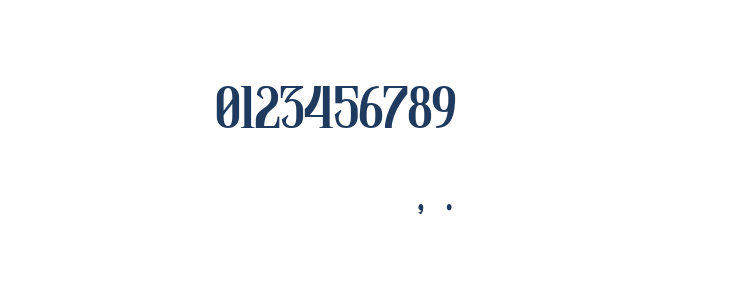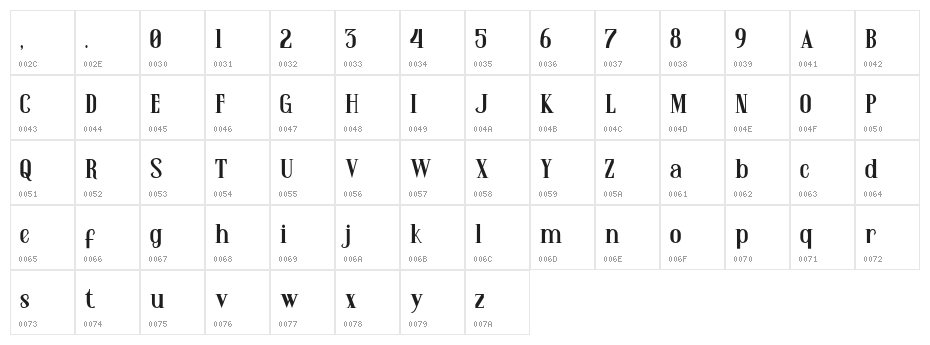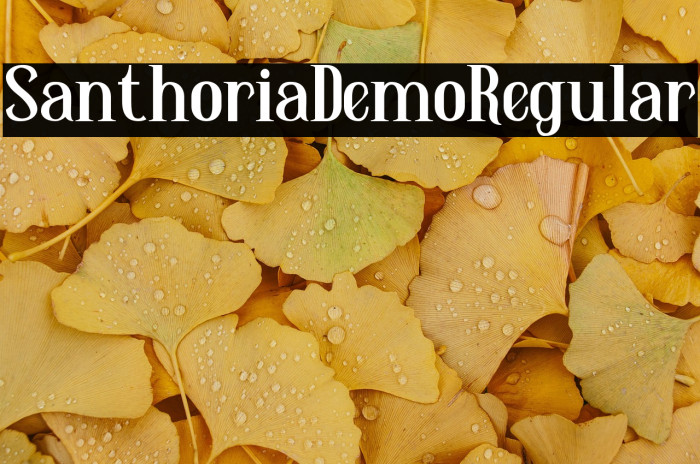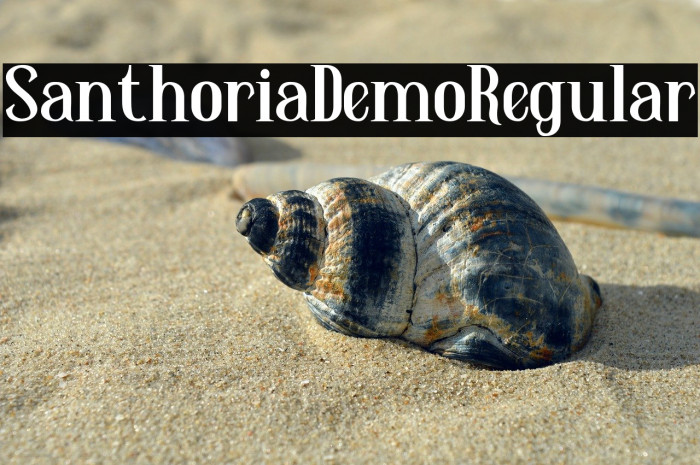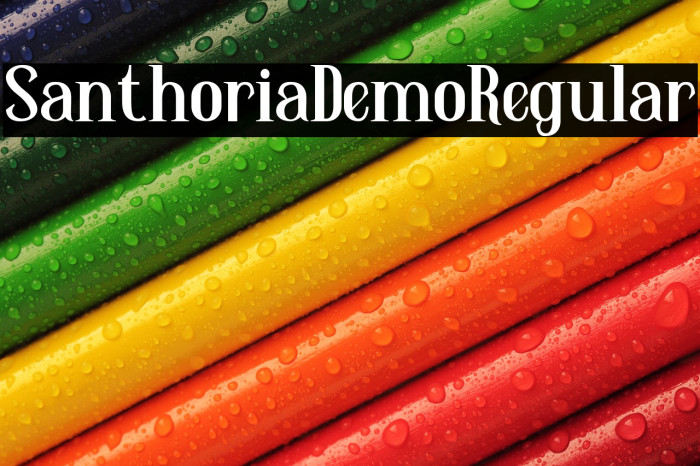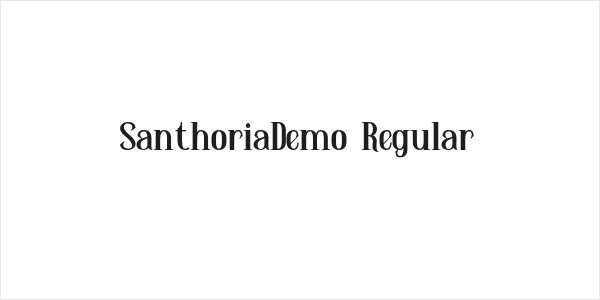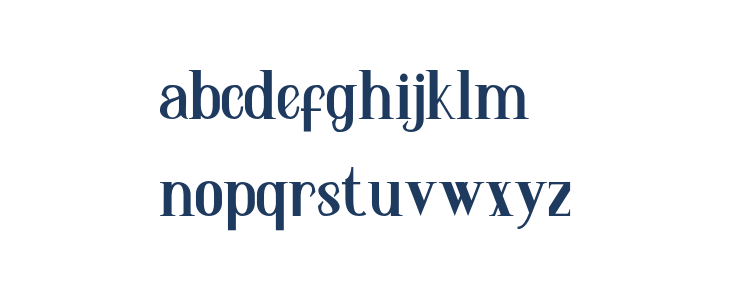
SanthoriaDemo-Regular Font
SanthoriaDemo-Regular Description
This typeface exhibits a bold and striking presence with its high contrast between thick and thin strokes. The uppercase letters are tall and commanding, while the lowercase letters maintain a consistent flow with elegant curves. The numbers are distinct and clear, ensuring readability. The font's overall design is reminiscent of classic serif styles, yet it incorporates modern elements that make it suitable for contemporary use. The special characters are crafted with attention to detail, enhancing the font's versatility. Its structured formality is balanced by subtle artistic touches, making it ideal for a variety of design applications.
| Proposed Projects | Ideal for branding, editorial design, book covers, and luxury product packaging. |